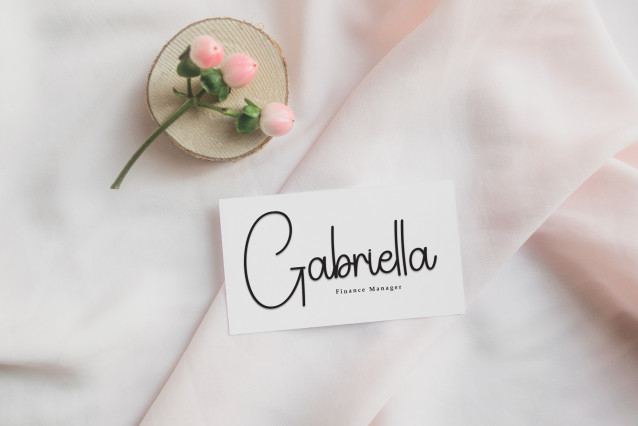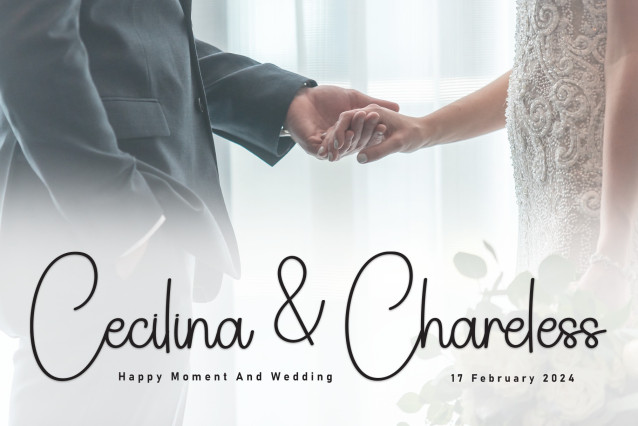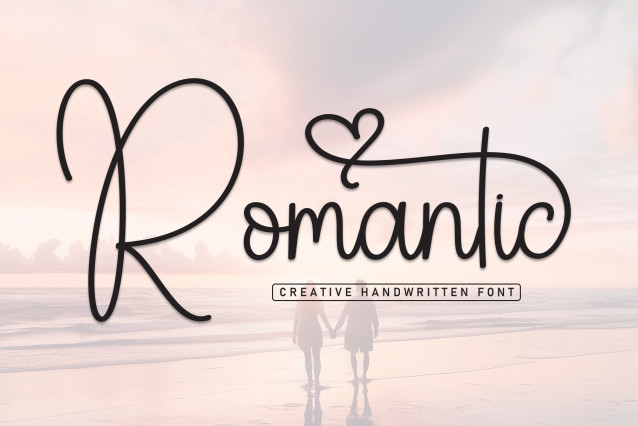
Romantic Font
Romantic Font – special creative products for you, our products will give you an extraordinary experience. The latest style letters are perfect for wall displays, wedding invitations, social media post logos, advertisements, product packaging, product designs, labels, photography, watermarks, invitations, stationery, and any project that requires taste handwriting.